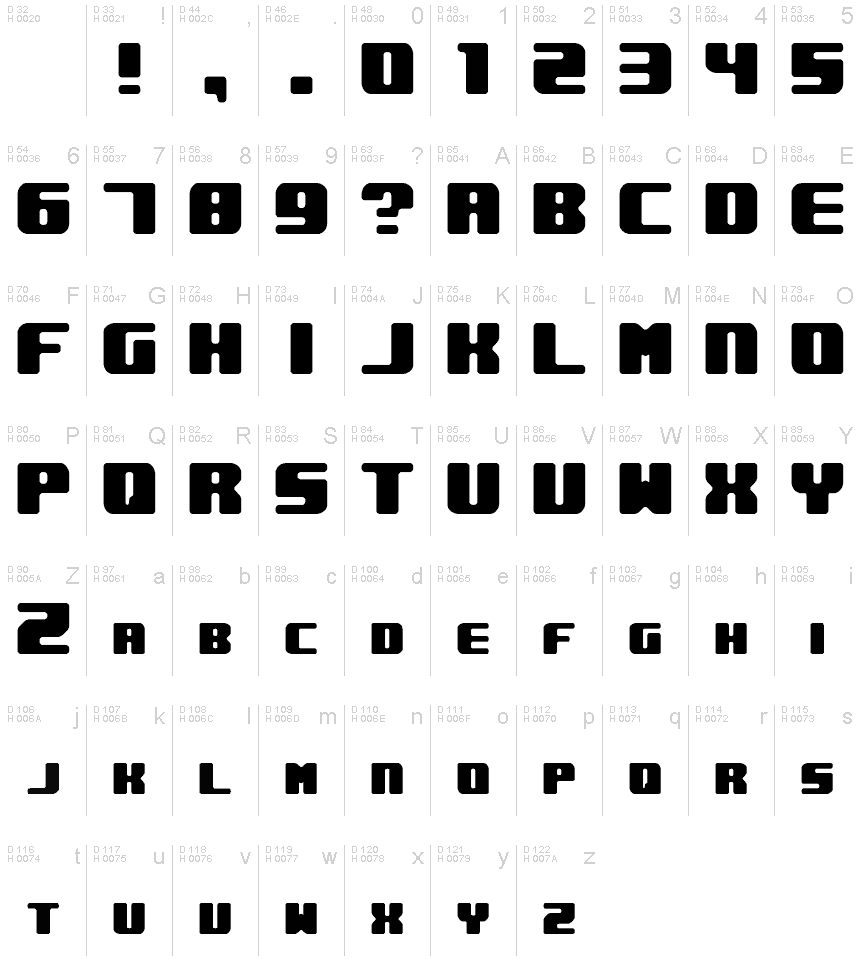
Underwhelmed BRK
Underwhelmed BRK, a creation by ÆNIGMA FONTS, is a display font that exudes a strong presence with its techno style and extra-bold weight. Its expanded width commands attention, making it an excellent choice for designers seeking to make a bold statement. The distinctively modern and geometric aesthetic of Underwhelmed BRK lends itself to high-impact visuals across various creative projects.
Whether it's branding, poster design, or digital media, this font offers both functionality and style—perfect for those aiming to convey contemporary sophistication with an edge.